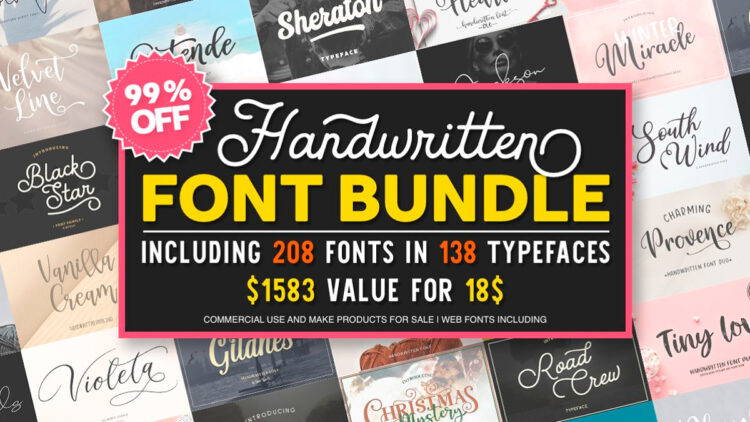
The use of modern fonts on your design project gives you extra mileage on your designs. Here we are presenting you with the most modern font bundle which is popular on the web. But most of the time modern fonts come with very high prices it even comes with so higher prices that anyone can’t afford the fonts to purchase individually.
So here we have made a presentation of a huge collection of handwritten fonts, modern fonts, and the fonts that you love to use and you can purchase with minimum cost.
This modern font bundle collection will give you more with less price and also it gives you the freedom to select your font for future use.
1. Handwritten Font Bundle
This font collection includes calligraphy, signature, brush writing, layered, fun, display, vintage, and lettering fonts, among other styles. Alternates, ligatures, and swashes are common.
2. All You Need Modern Font Bundle
3. Font Bundle SALE
4. Handlettered Font Bundle
5. Modern Font Bundle For Commercial Use
There are 65 typefaces in total, with a total of 209 fonts.
It comes with a number of font styles that can be used for a variety of projects and jobs.
Serif fonts, sans serif fonts, slab serif fonts, modern calligraphy fonts, signature fonts, brush lettering fonts, layering fonts, fun fonts, display fonts, vintage fonts, stencil fonts, monoline fonts, and more are all included in this collection. All typefaces are multilingual, and many of them contain alternates, ligatures, and swashes.
6. Calamar Studio Whole Shop Font Bundle
CALAMAR STUDIO’S WHOLE SHOP BUNDLE
The best deal in this store has finally arrived. In one area, you’ll find a large number of typefaces for your projects. With this collection, you may create beautiful wedding invitations, posters, greeting cards, and inspirational quotations for your social media, among other things.
7. The HUGE Font Bundle (98% OFF) SALE